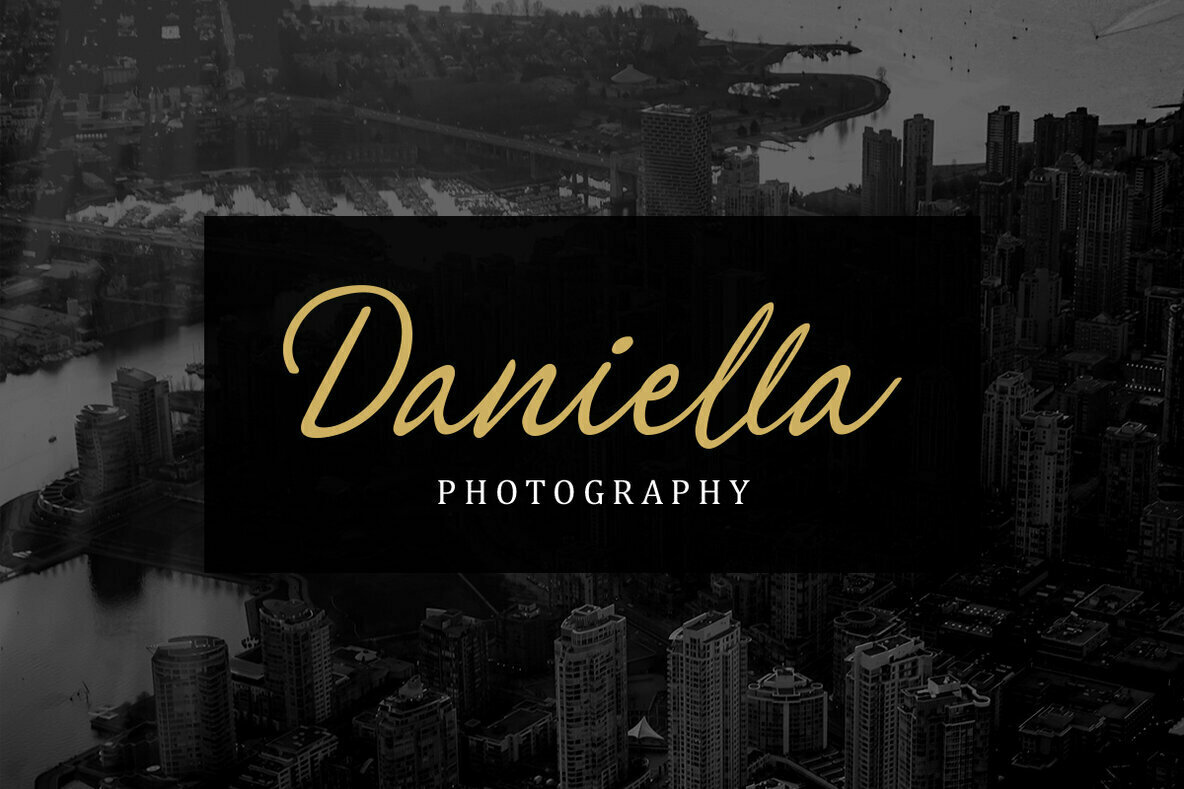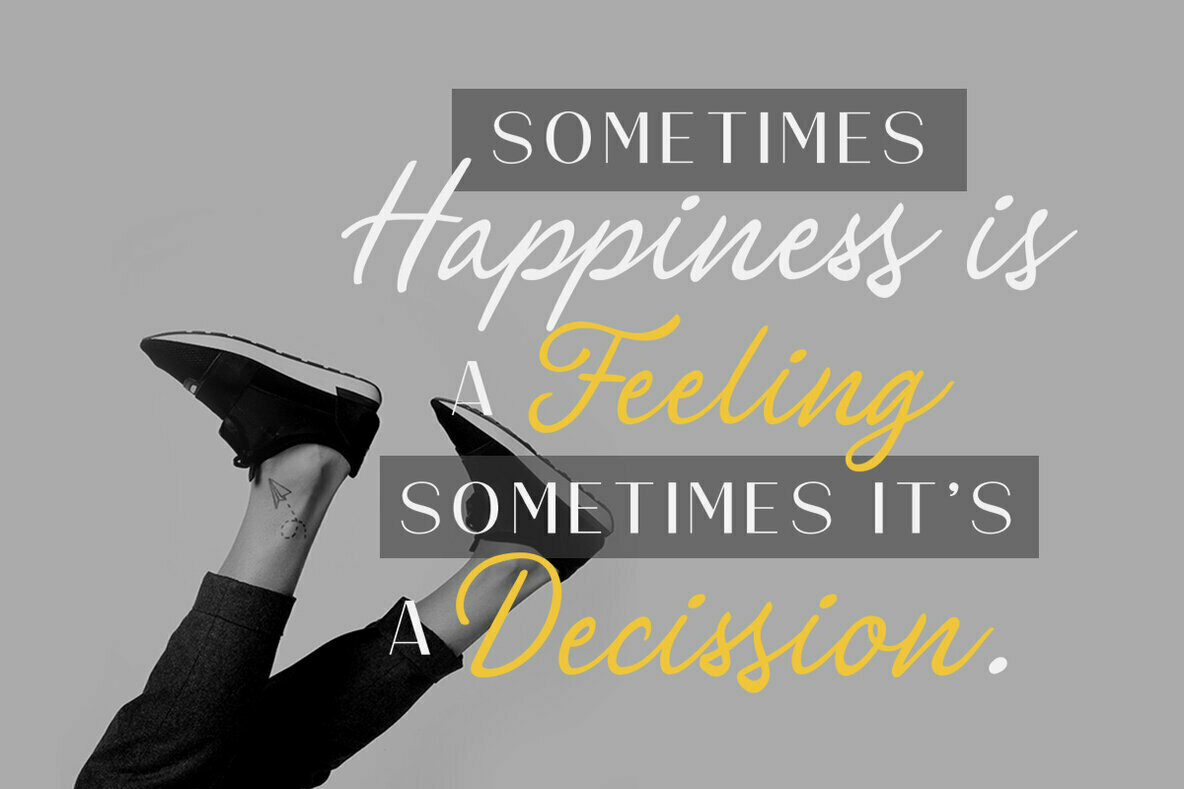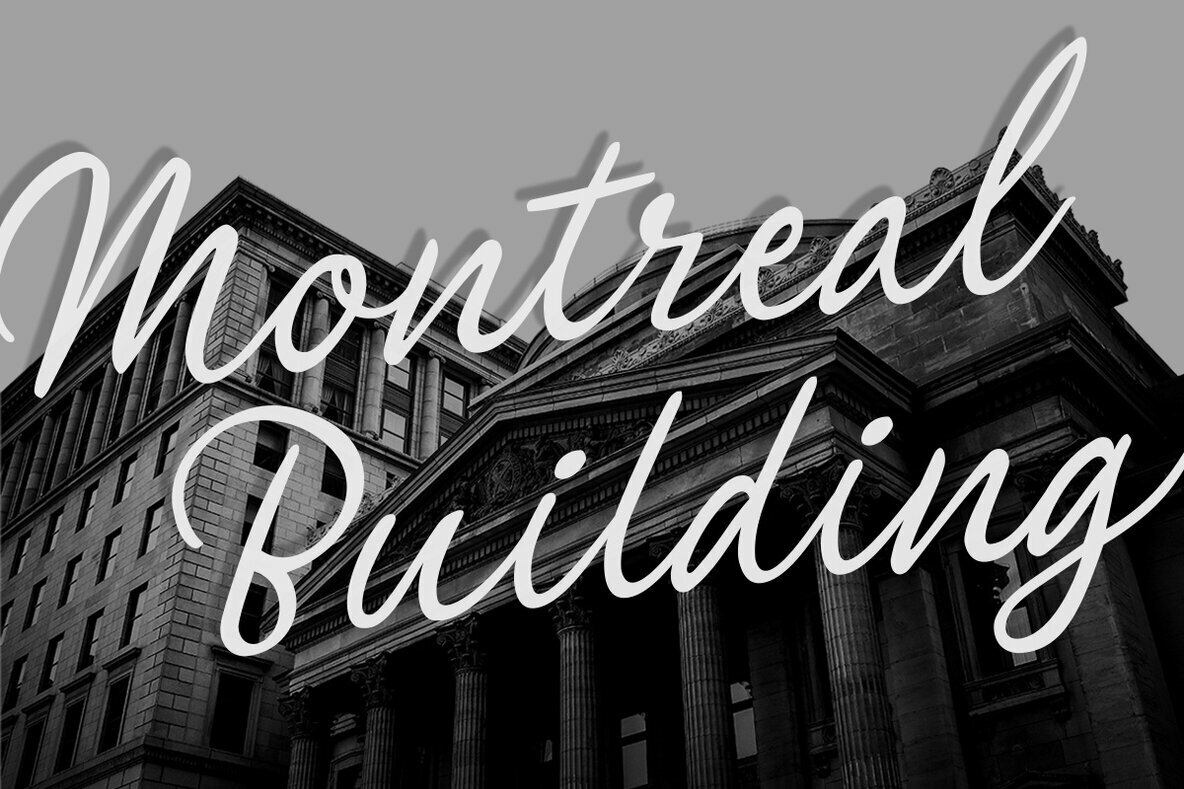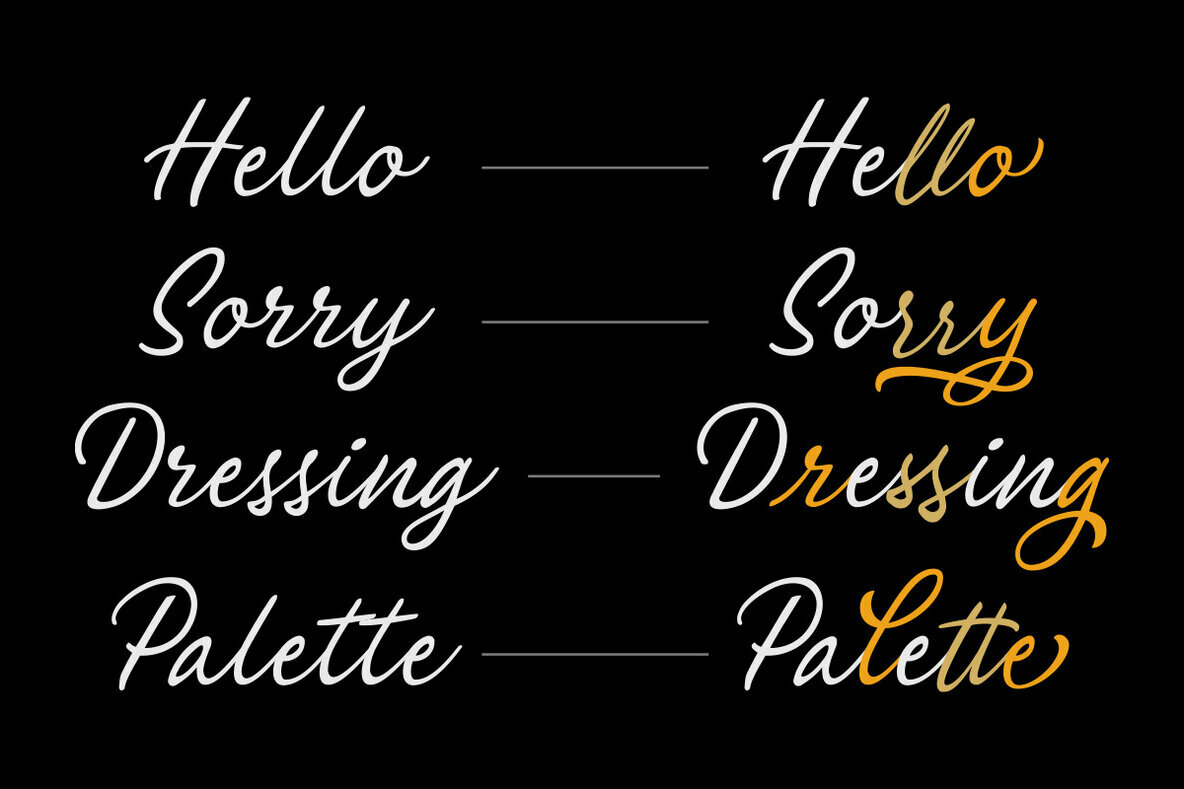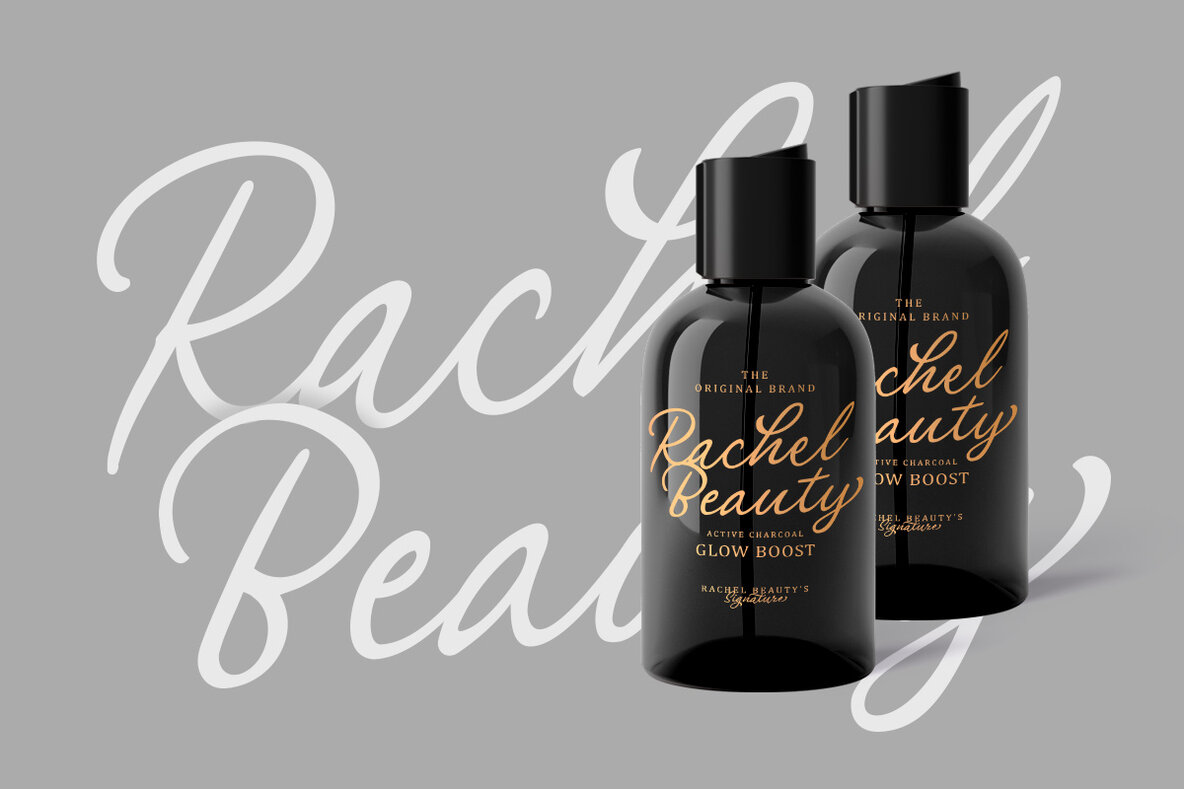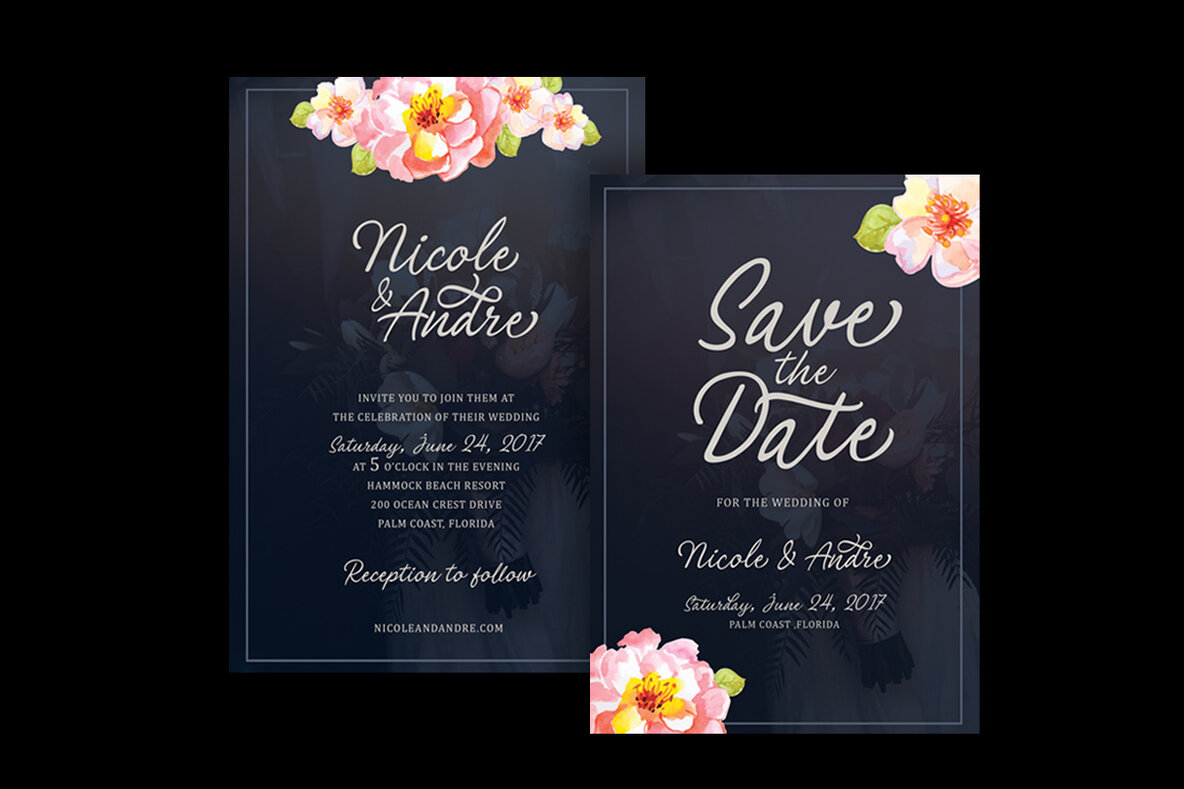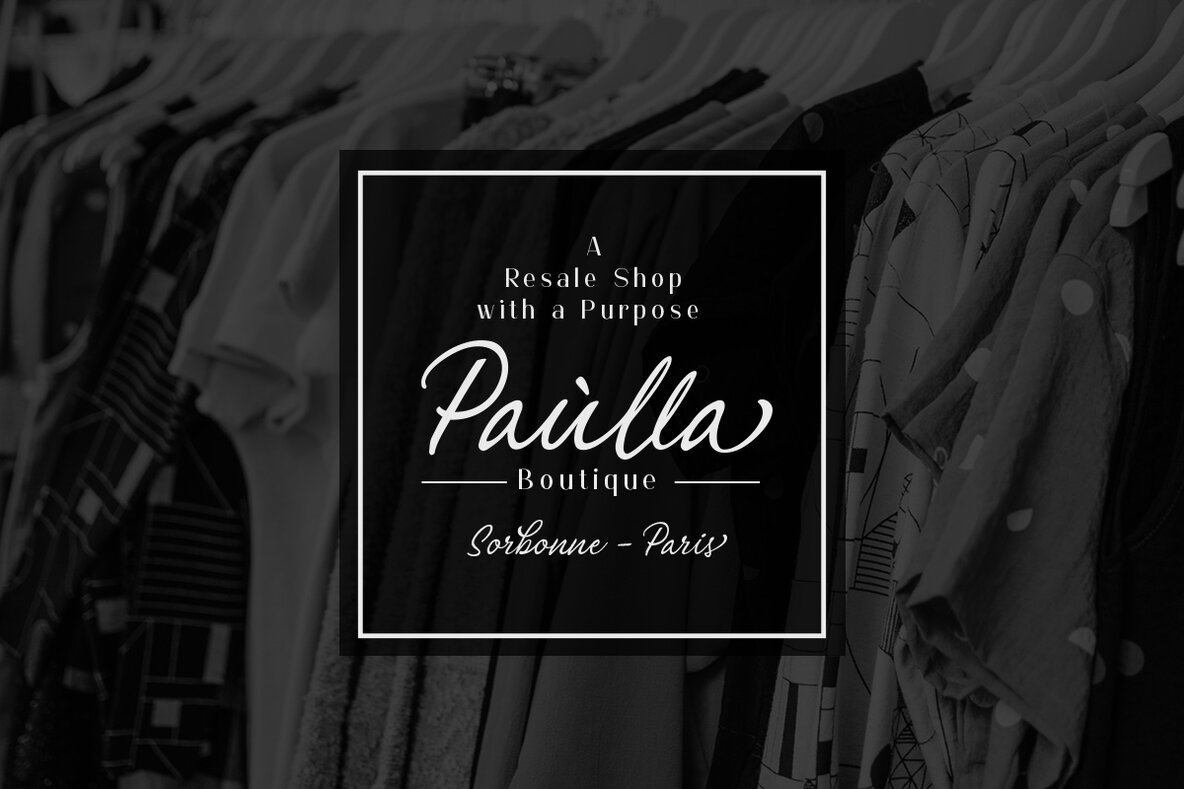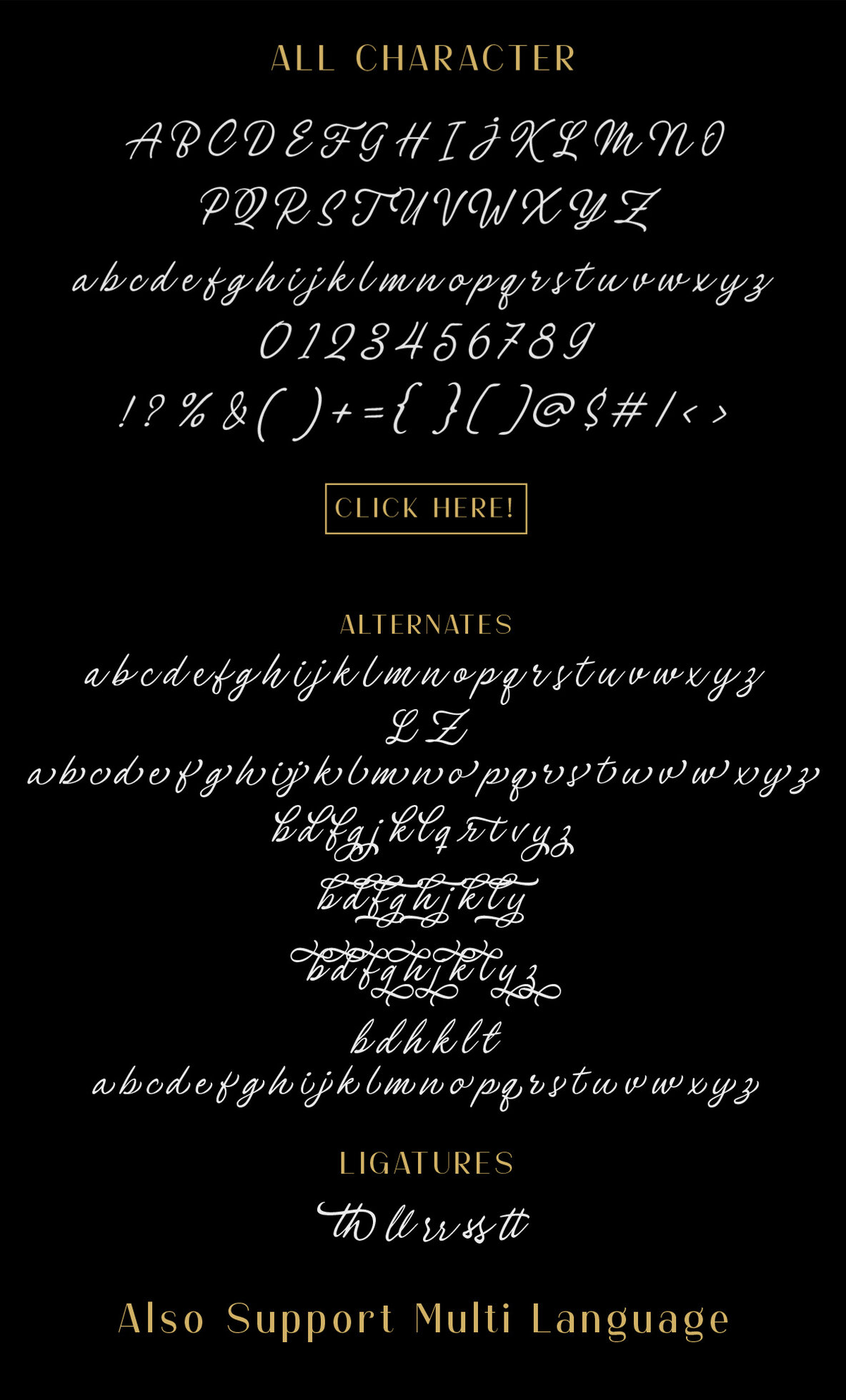
Philomena: Signature Script for Sophisticated Design
Philomena offers a distinctive blend of elegance and luxury, capturing the essence of a handwritten signature. Its natural flow and sophisticated curves make it an ideal choice for a variety of applications, including headlines, logotypes, and branding materials. Whether you're developing apparel labels, designing invitations, or creating advertisements, Philomena provides the perfect touch of refinement.
• Uppercase and lowercase characters
• Punctuation and symbols
• Numerals
• Stylistic set alternates
• Ligatures
• Multilingual support